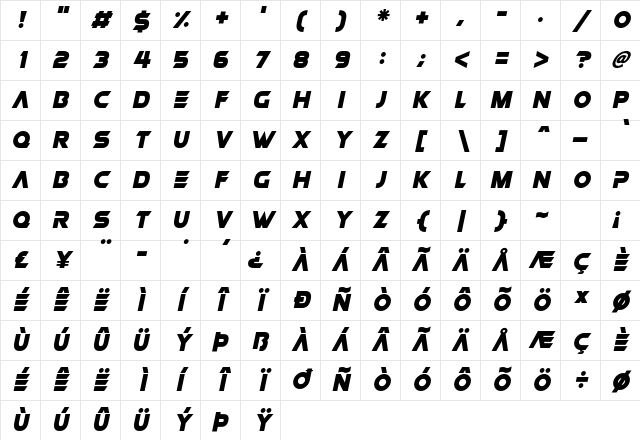
Complete Space Crusaders Italic glyph index. Displaying only characters natively supported by Space Crusaders Italic font.
Space Crusaders is a composed and adaptable typeface that performs quietly and consistently across a wide range of design contexts. The slanted form adds forward momentum and visual energy.